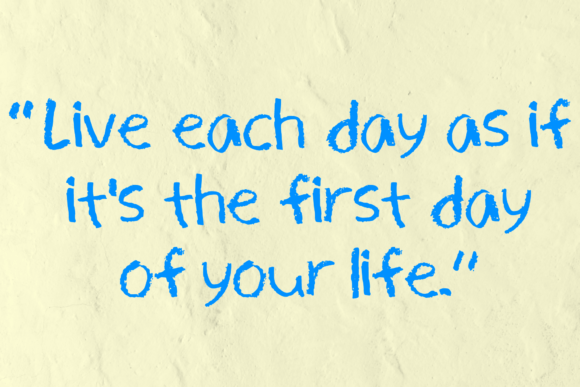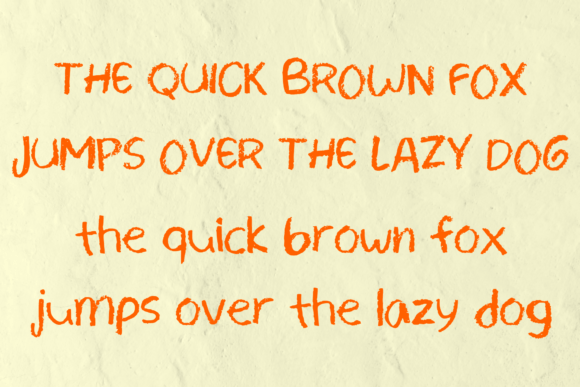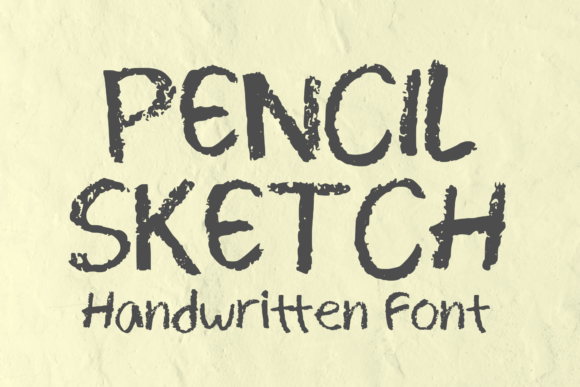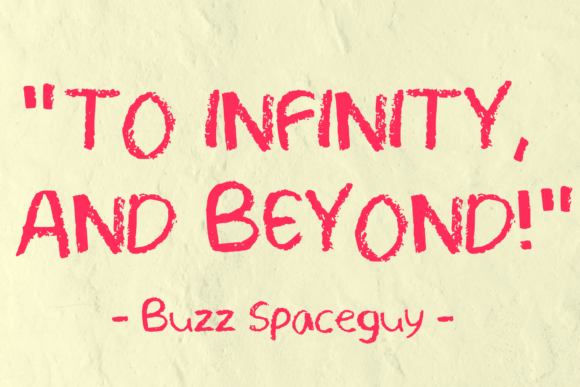
Pencil Sketch Font: A Cute Handwritten Font for Kids & DIY Crafts
About the Pencil Sketch Font
We are excited to introduce Pencil Sketch Font, a must-have typeface for any serious designer. Pencil Sketch is a perfect handwritten sans serif font and very versatile for everything you need! You can use it for anything ranging from t-shirts, kids’ magazines, social media posts, greeting cards, stickers, posters, kid’s book design or anything that needs a casual touch. Try it to create cool designs and feel the good vibes with it!
Pencil Sketch’s casual, friendly aesthetic makes it ideal for projects requiring a hand-drawn feel, such as children’s books, branding for playful products, or social media graphics. It works well in headlines, short text blocks, and logos, adding a touch of informality and approachability. However, its less-structured nature makes it unsuitable for body text or UI elements where readability is paramount. Avoid using it in long paragraphs or situations demanding high legibility.
Pairing Pencil Sketch with a clean sans-serif like Open Sans for body text offers a strong contrast and visual balance. For a more sophisticated look, consider pairing it with a delicate serif font such as Lora. Alternatively, a geometric sans-serif like Montserrat could provide a modern counterpoint, enhancing the font’s playful energy while maintaining a degree of visual order.
The font’s overall personality is best described as friendly and approachable, conveying a sense of warmth and informality. It’s well-suited to brands targeting a young or family-oriented demographic, or those wishing to project a relaxed, approachable image.
Pencil Sketch Font Usage Examples
Pencil Sketch Font Example